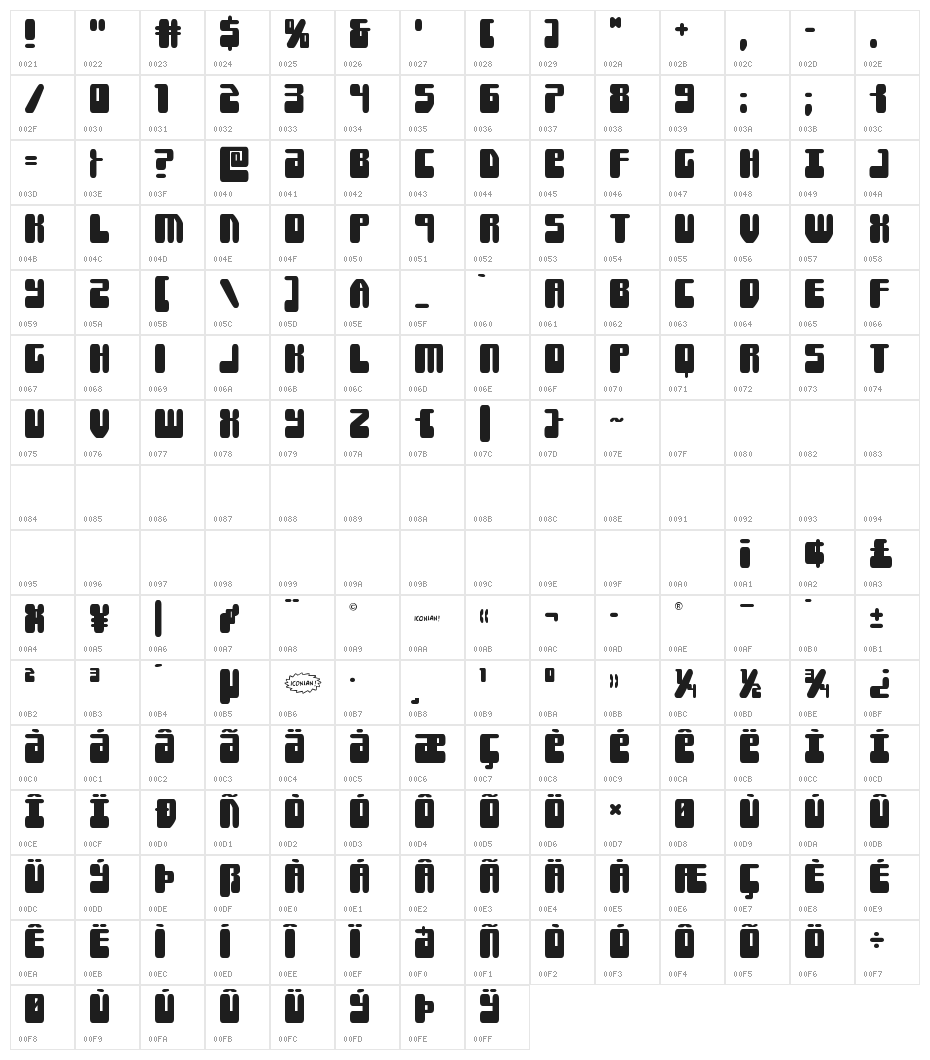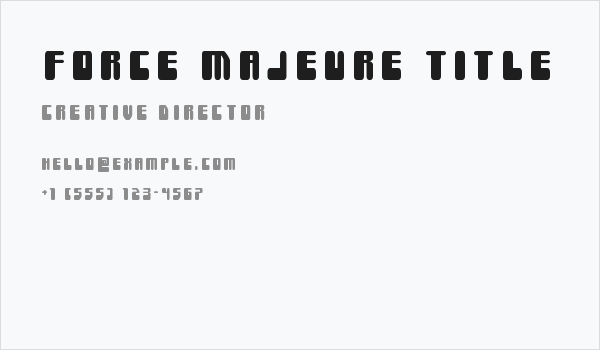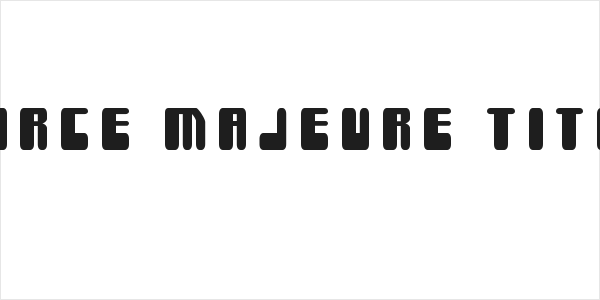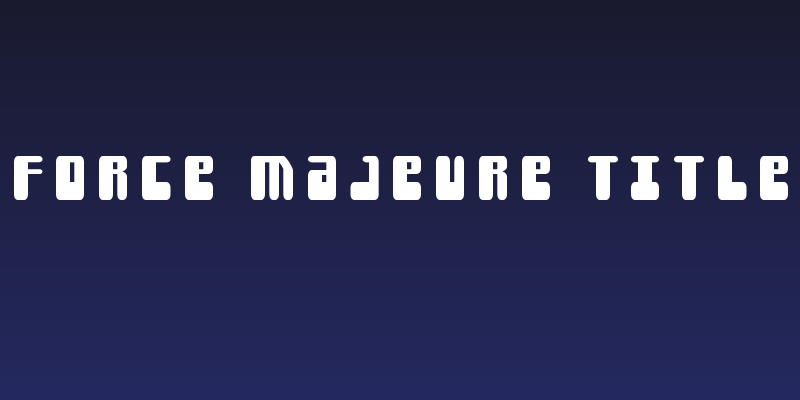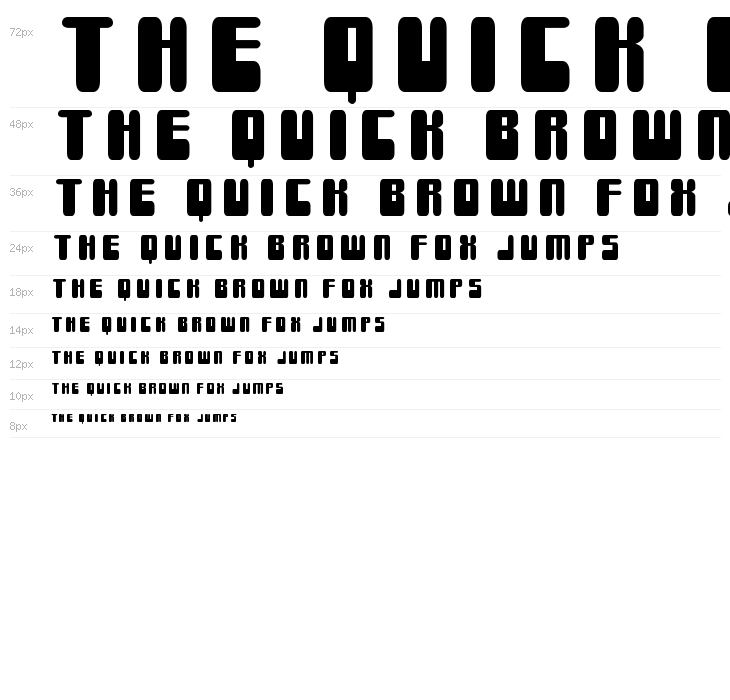
Force Majeure Title Font
This font features a bold, geometric design with a distinctly modern and futuristic aesthetic. The characters are constructed with thick, uniform strokes that create a strong visual impact. The letterforms are squared with rounded corners, giving them a unique, blocky appearance. The numbers and special characters follow the same design principles, ensuring consistency across the typeface. The overall style is clean and minimalistic, making it suitable for projects that require a contemporary and assertive look.
| Proposed Projects | Ideal for branding, posters, headlines, and digital interfaces that require a strong, modern presence. |